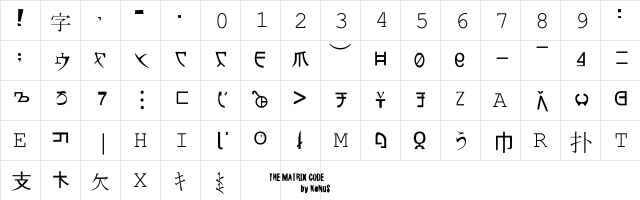
Matrix Code Regular
| Designer | KoNuS 頲003 |
Design Context for Matrix Code Typeface
Matrix Code brings the precise, column-aligned rhythm of monospaced typography to designs that value technical clarity and systematic order.